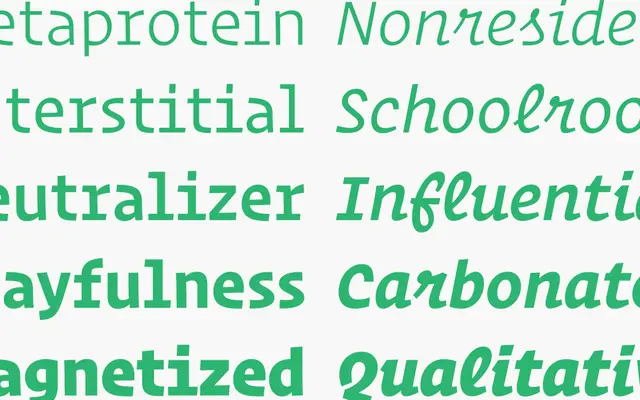
Operator
Hoefler & Co · Andy Clymer, Jonathan Hoefler, Sara Soskolne · 2015
A typewriter-inspired family in both proportional and monospaced widths, drawn for editorial voice and for code editors.
A slab-serif family by Andy Clymer, Jonathan Hoefler and Sara Soskolne that takes the voice of typewriting and rebuilds it as a full typographic system. The primary Operator family is proportional, allowing letters to take their natural widths, while Operator Mono is a fixed-width companion for programming environments and any setting that needs a true monospace. Both run across multiple weights with matching italics, and a ScreenSmart cut is provided for small-size screen work. Reach for it on editorial features, charitable appeals and corporate communications that want the earnestness of a typewritten letter, and on code editors that want a typewriter feel with real weight range.
H&Co describe Operator as a non-typewriter face. The primary Operator family has natural proportional widths; Operator Mono is the fixed-width companion intended for code editors and other monospaced settings.